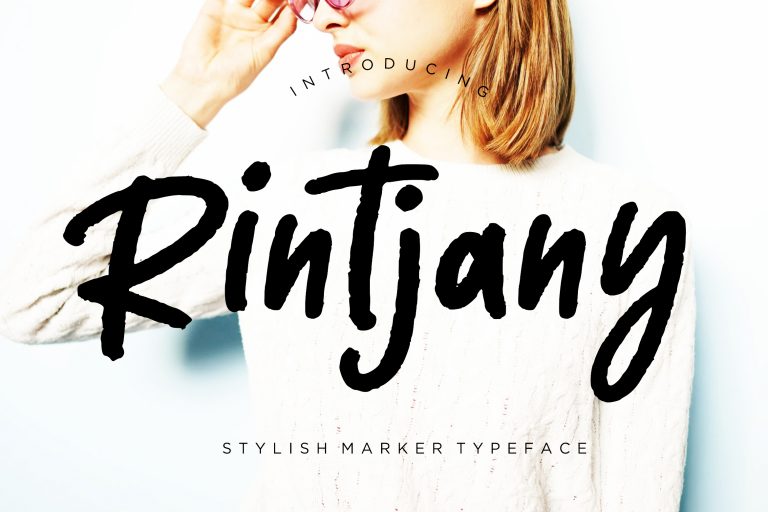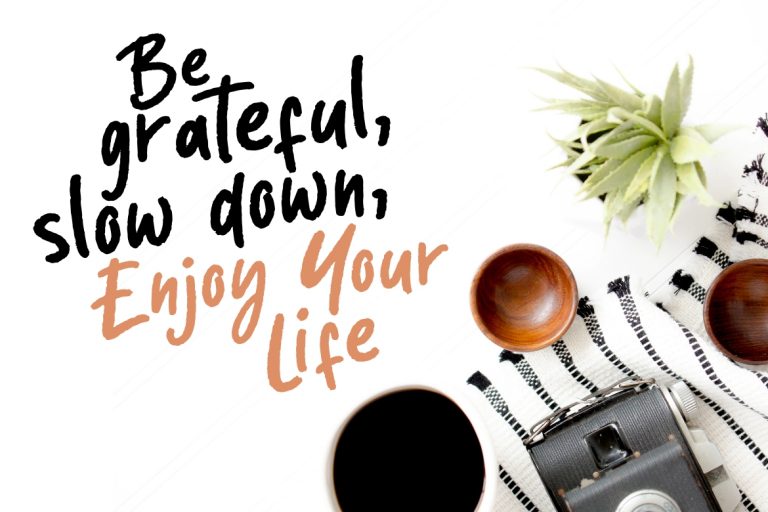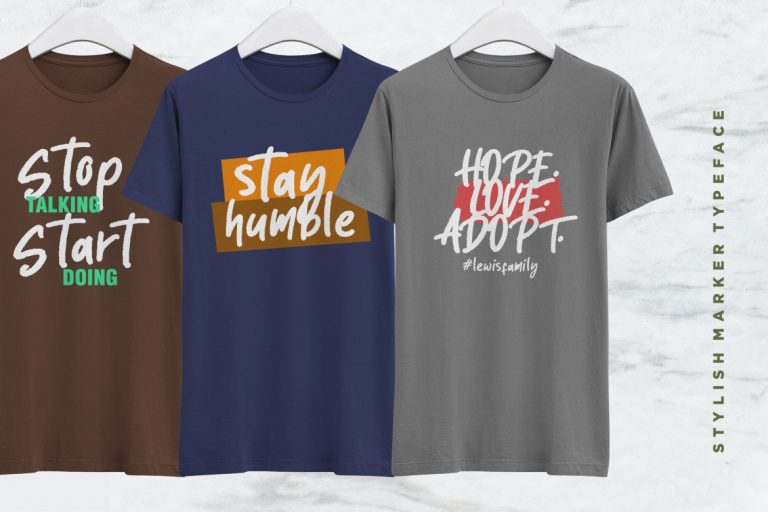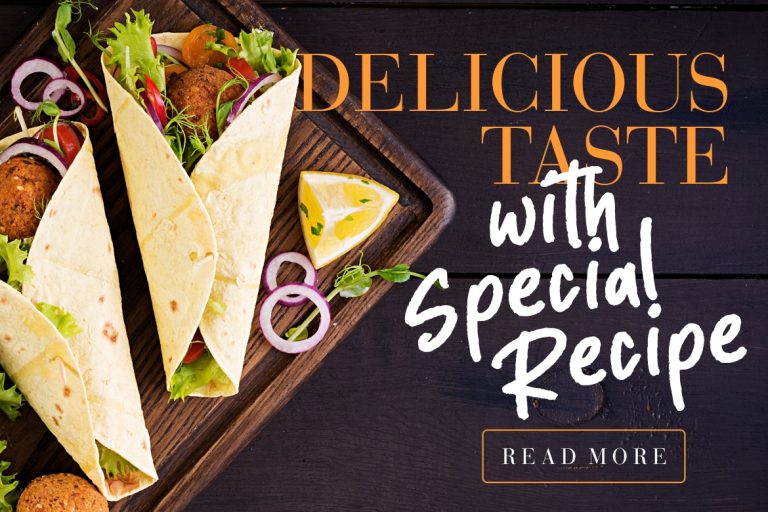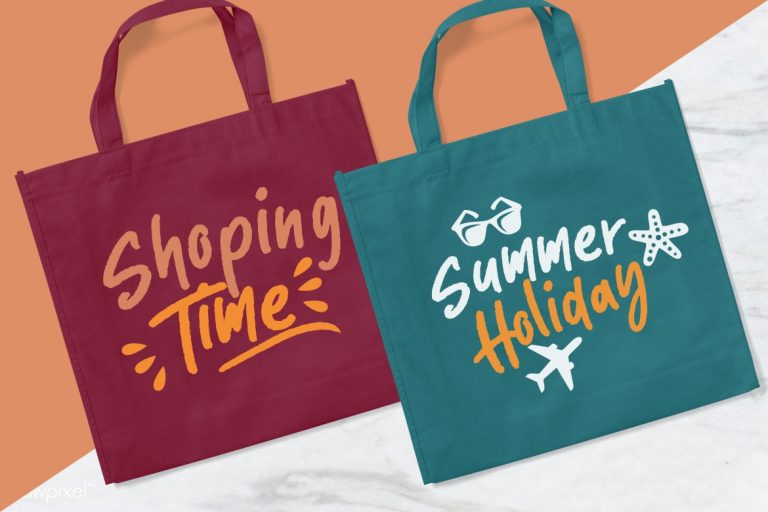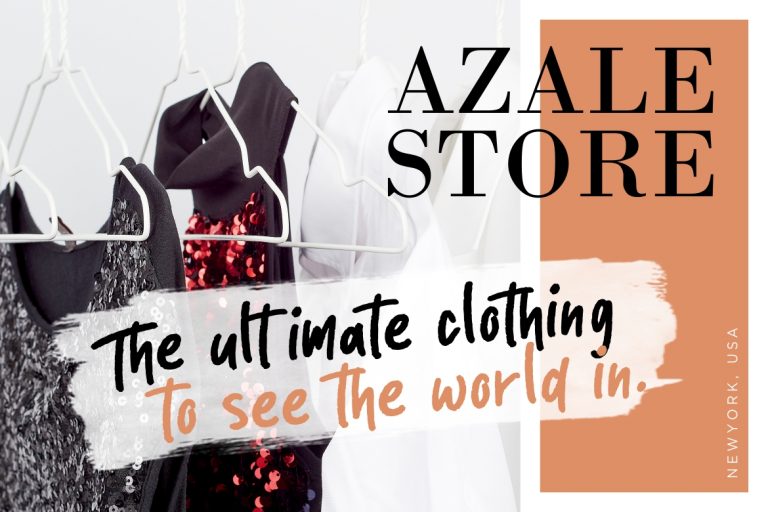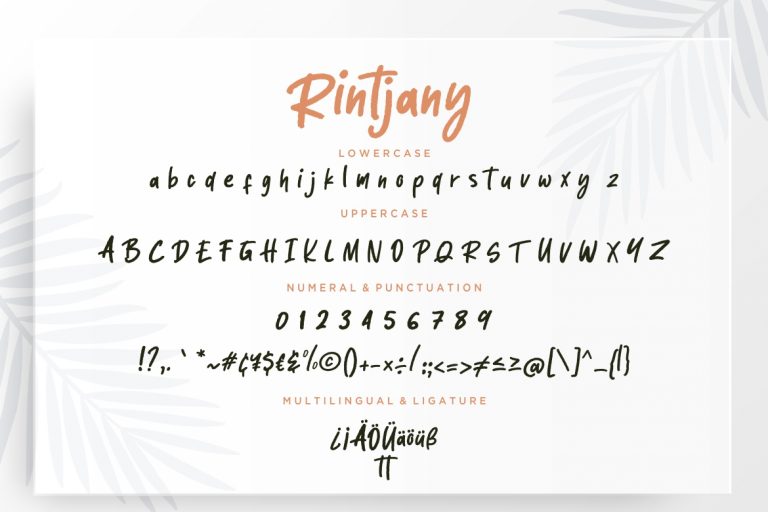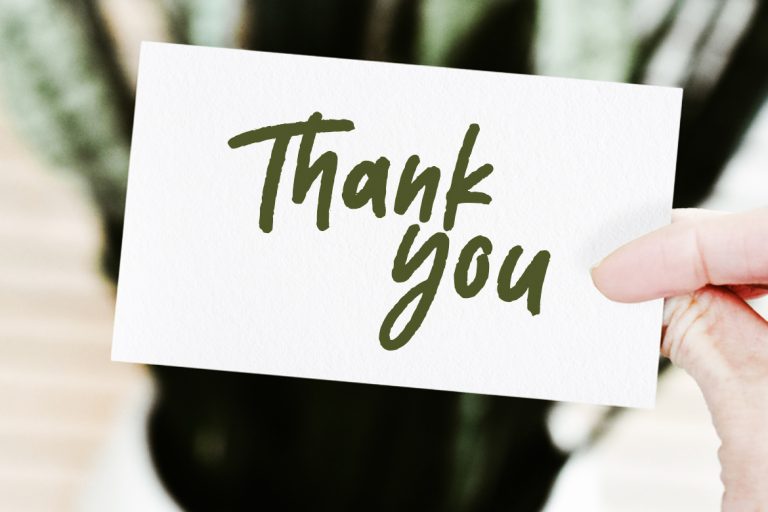
Rintjany Stylish Marker Typeface
Rintjany is stylish marker brush font that looks natural and perfect for casual occasion.
Rintjany is perfect for branding projects, logo, wedding designs, social media posts, advertisements, product packaging, product designs, label, photography, watermark, invitation, stationery and any projects that need handwriting taste.
• Standard glyphs
• Ligature
• Fonts include multilingual support for; ä ö ü Ä Ö Ü ß ¿ ¡